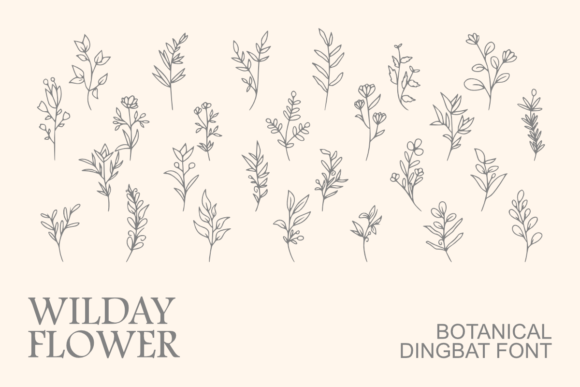
Looking for the perfect font for your Cricut stencil? Look no further than Wilday Flower Font, created by DDY creative. This exquisite dingbat font is packed with botanical, foliage, wildflower, branch, wildplant, floral, stem, plant, and botany elements, all beautifully hand-drawn.
Wilday Flower Font is the ultimate choice for all your craft needs throughout the year. Whether it's fall, autumn, spring, or summer, this font has got you covered. Its versatile design allows you to create stunning stickers, DIY projects, vinyl decals, and decorative elements that will elevate your crafts to a whole new level.
Decorators and craft enthusiasts rejoice! Wilday Flower Font is compatible with various cutting machines, including Cricut, Silhouette, and laser cutters. With its intricate details and eye-catching style, this font is perfect for designing tumbler wraps, adding a touch of elegance to any beverage container.
But why settle for ordinary when you can have extraordinary? Wilday Flower Font is not just any font; it's a work of art that will captivate your audience. Let your creativity bloom as you incorporate these stunning botanical elements into your projects. From invitations to greeting cards, Wilday Flower Font will add a touch of nature's beauty to every design.
Embrace the beauty of nature with Wilday Flower Font. Its hand-drawn style and botanical elements evoke a sense of tranquility and charm. Transform any ordinary project into a masterpiece that will leave a lasting impression.